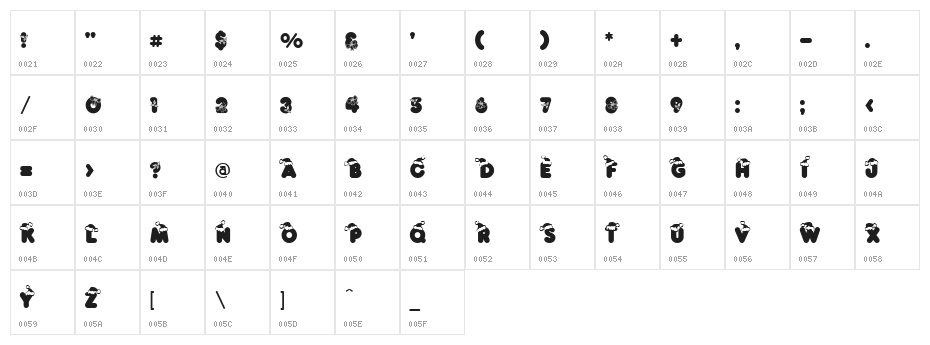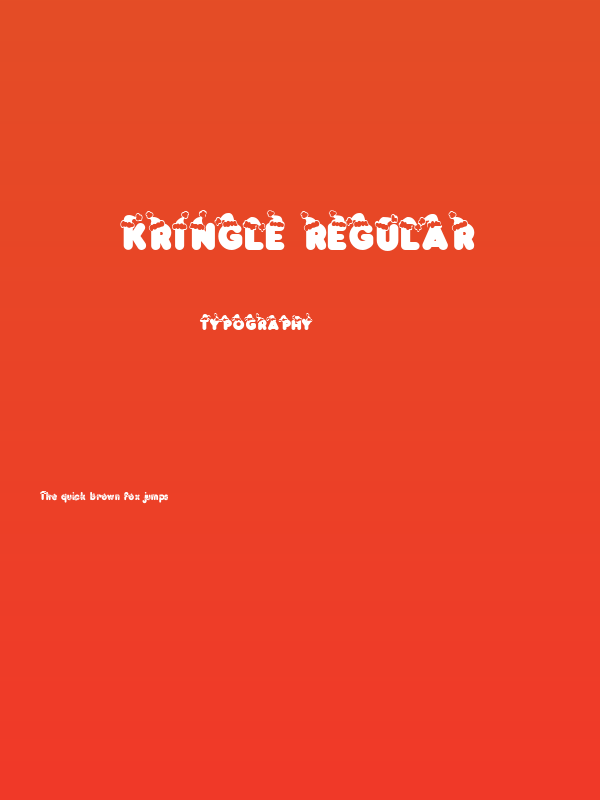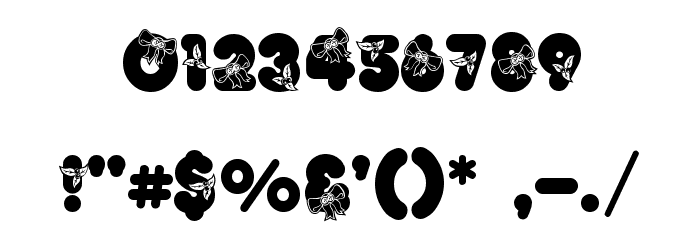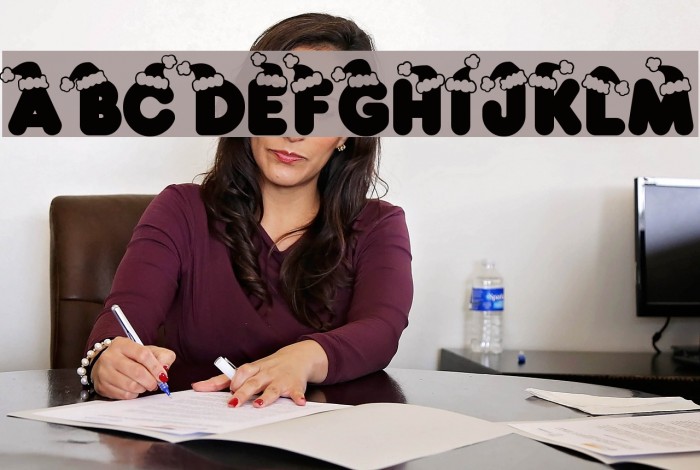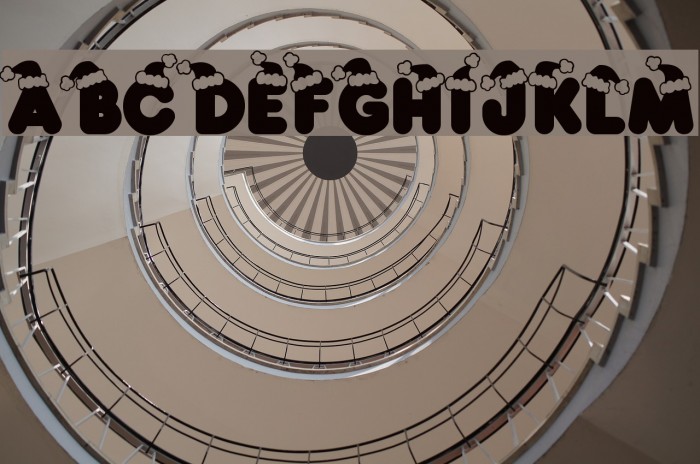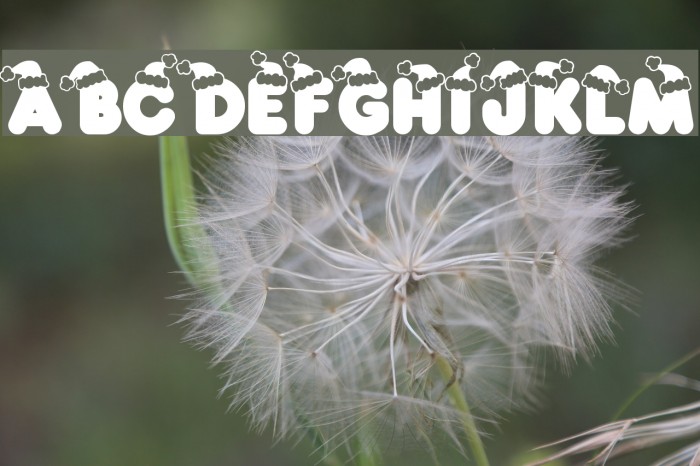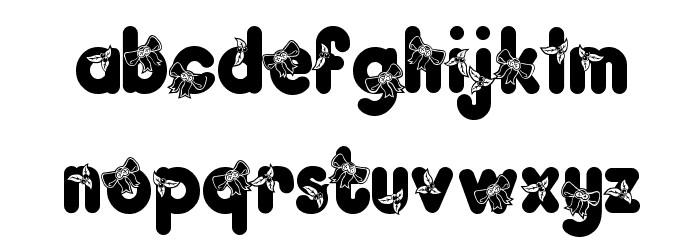
Kringle Regular Font
Kringle Regular Description
This playful and festive font features bold, rounded characters adorned with whimsical holiday elements such as Santa hats and bells. The uppercase letters are topped with Santa hats, adding a cheerful and seasonal touch. The lowercase letters and numbers are decorated with bells, enhancing the holiday spirit. The font's thick, solid strokes and rounded edges give it a friendly and approachable appearance, making it ideal for festive occasions. The characters are evenly spaced, ensuring readability while maintaining a decorative flair. This font is perfect for capturing the joy and excitement of the holiday season.